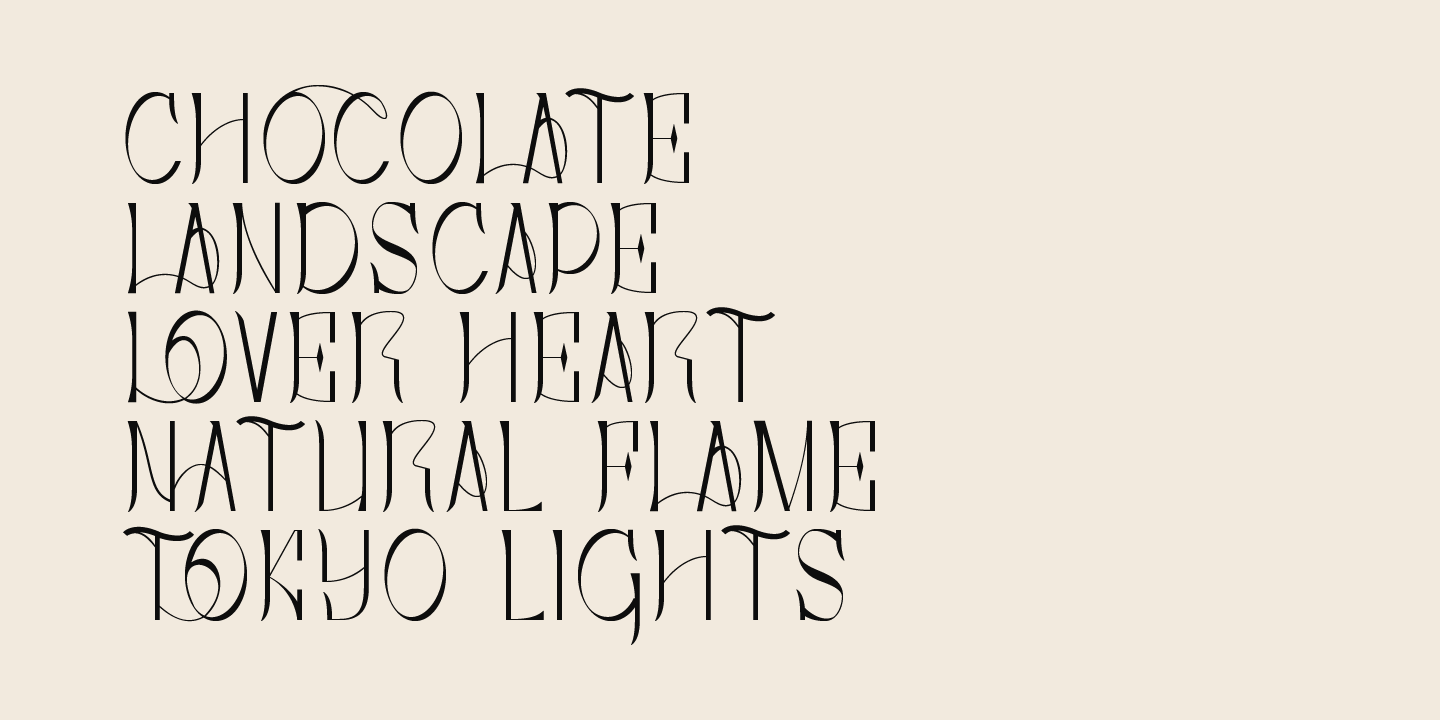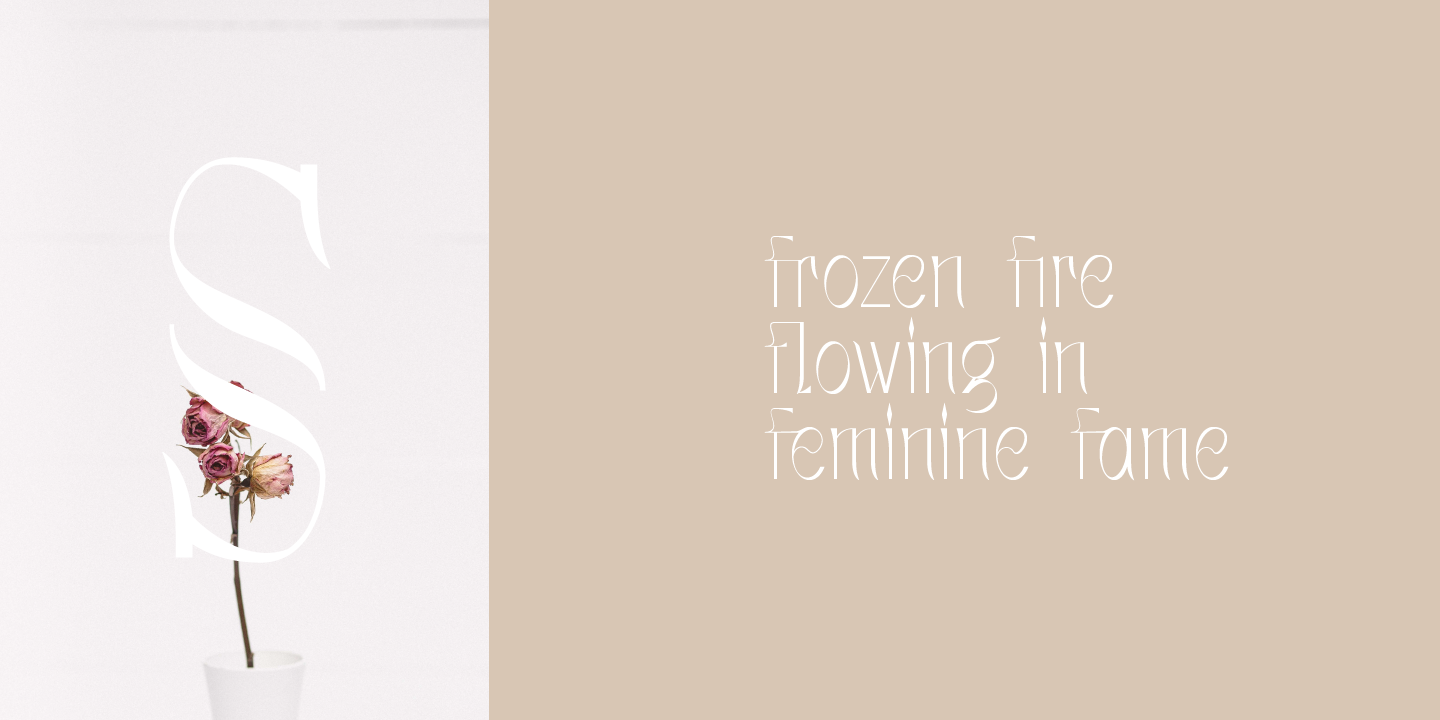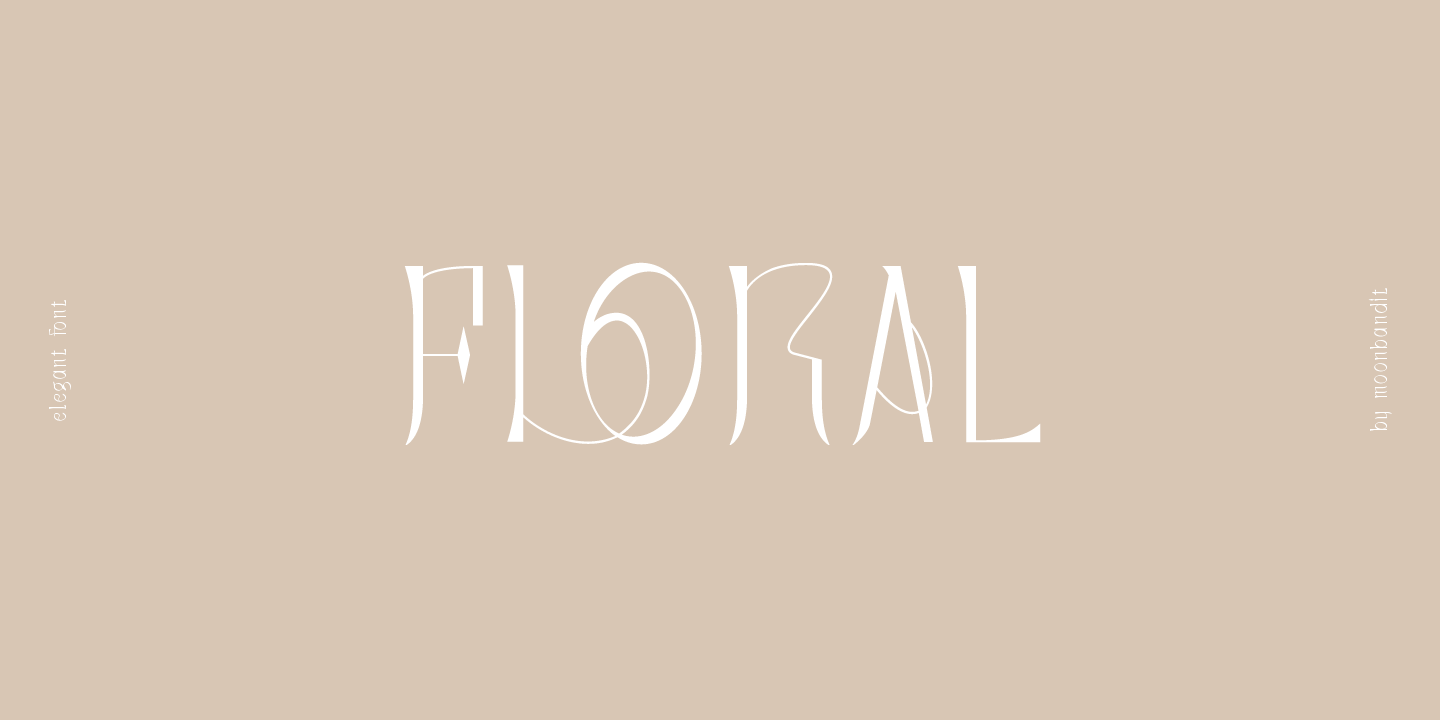
MBF Louna
Louna is an elegant, multi purpose font. This typeface has many ligatures to enhance the prestige feel in your project. You can use Louna for display, logo, headline, titling, and even text.